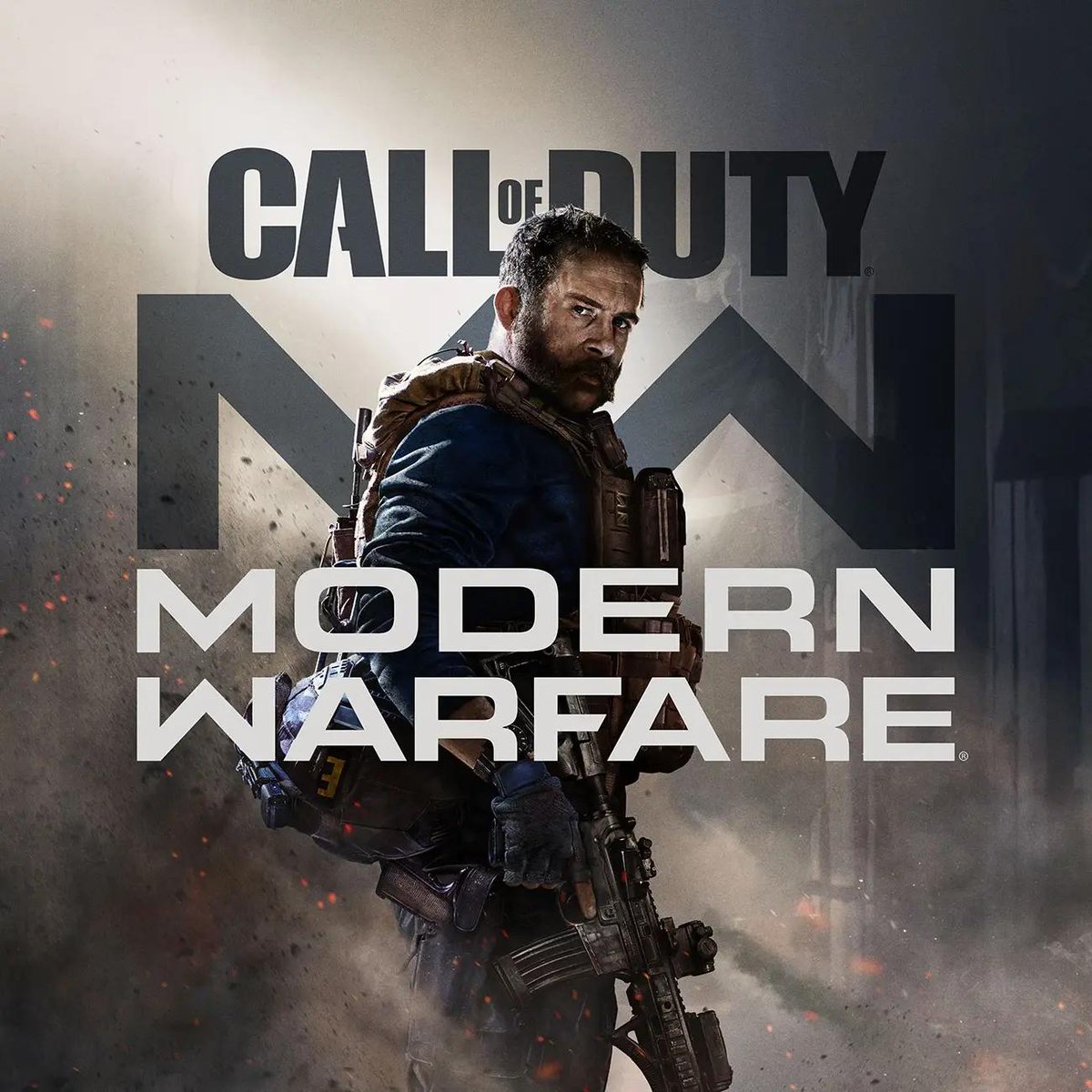
Modern Warfare Font
Fonts in UseCall of Duty: Modern Warfare is a first-person shooter game developed by Infinity Ward and published by Activision. It features a campaign mode, multiplayer mode, and cooperative mode, with an emphasis on realistic combat and a gritty, intense storyline.
To recreate the game logo, you can use either Eurostile Bold Extended, or opt for the fan-made font Modern Warfare. For the text "Call of Duty", a slightly modified version of Impact is used.